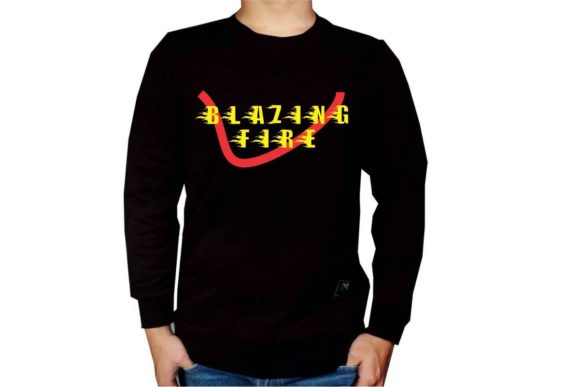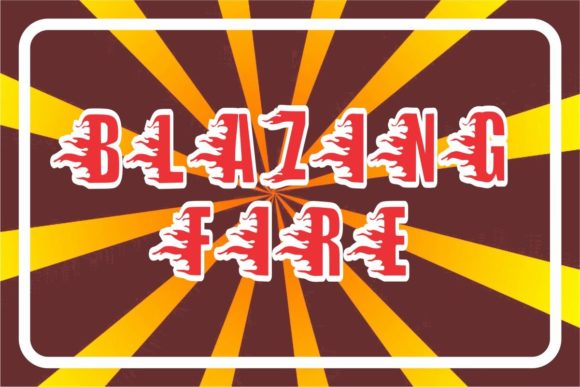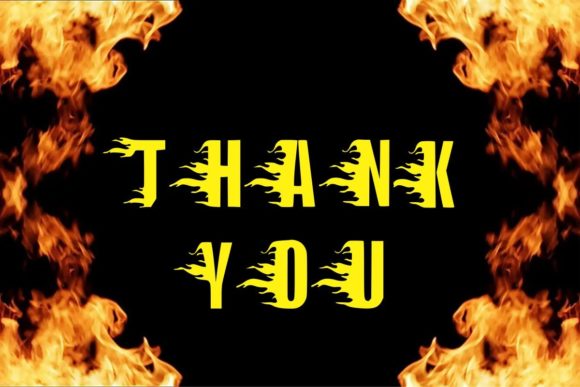
Ignite Your Creativity with Blazing Fire Font
Are you looking for a unique and eye-catching font to add a spark to your creative projects? Look no further than the Blazing Fire Font! This decorative font is designed to resemble a blazing fire, making it perfect for crafts, t-shirt designs, posters, digital designs, presentations, book covers, and more.
What is Blazing Fire Font?
Blazing Fire Font is a one-of-a-kind, fire-like decorative font that is sure to grab attention. Its unique design makes it stand out from traditional fonts, adding a touch of excitement and energy to any project. With its bold and fiery appearance, this font is ideal for designers and crafters who want to create something truly special.
The Blazing Fire Font offers endless creative possibilities, allowing you to add a touch of warmth and excitement to your projects. Here are some ideas to get you started:
- Crafts: Use the Blazing Fire Font to add a personal touch to your handmade crafts, such as scrapbooking, card making, or woodworking projects.
- T-Shirt Designs: Create eye-catching t-shirt designs that are sure to turn heads with the Blazing Fire Font.
- Posters: Add a bold and fiery touch to your posters, whether you’re advertising an event, promoting a product, or simply creating a work of art.
- Digital Designs: Use the Blazing Fire Font to add a touch of excitement to your digital designs, such as social media graphics, blog posts, or website headers.
- Presentations: Make your presentations stand out with the Blazing Fire Font, adding a touch of energy and enthusiasm to your slides.
- Book Covers: Create a bold and eye-catching book cover with the Blazing Fire Font, perfect for fiction, non-fiction, or children’s books.
Why Choose Blazing Fire Font?
So, why choose the Blazing Fire Font for your creative projects? Here are just a few reasons:
- Unique Design: The Blazing Fire Font features a one-of-a-kind design that is sure to grab attention.
- Versatile: The Blazing Fire Font can be used for a wide range of creative projects, from crafts to digital designs.
- High-Quality: This font is high-quality and designed to produce crisp, clear text.
Tips for Using Blazing Fire Font
Here are some tips for getting the most out of the Blazing Fire Font:
- Use it sparingly: While the Blazing Fire Font is eye-catching, it can be overwhelming if used too much. Use it sparingly to add a touch of excitement to your projects.
- Experiment with colors: Try experimenting with different colors to find the perfect combination for your project.
- Pair it with other fonts: Consider pairing the Blazing Fire Font with other fonts to create a unique and interesting contrast.
| Font Name | Blazing Fire Font |
| Author | fana studio |